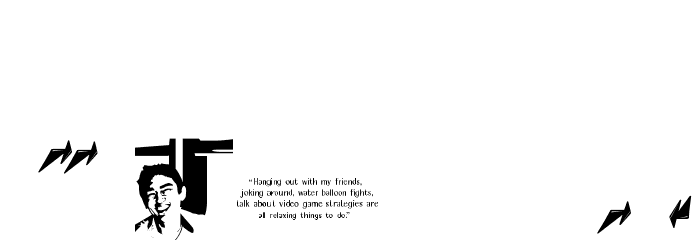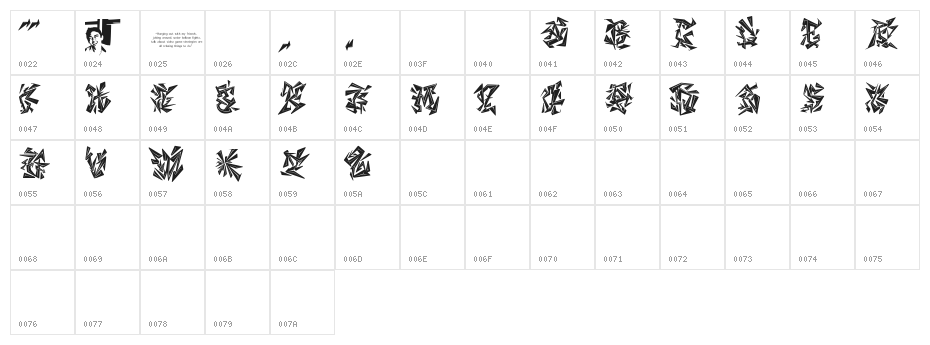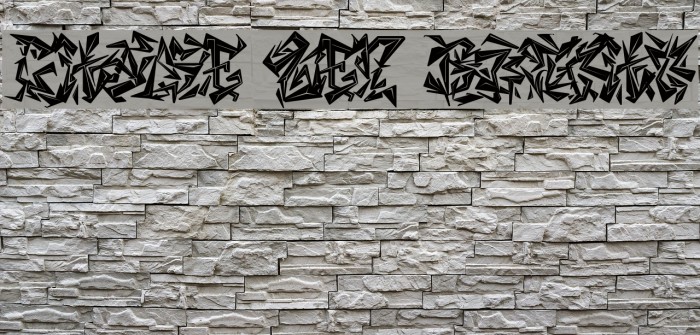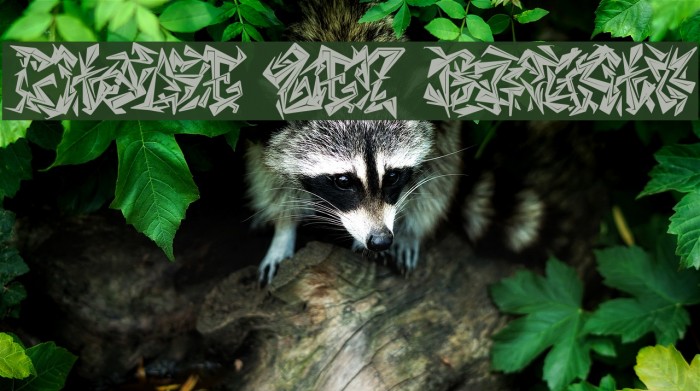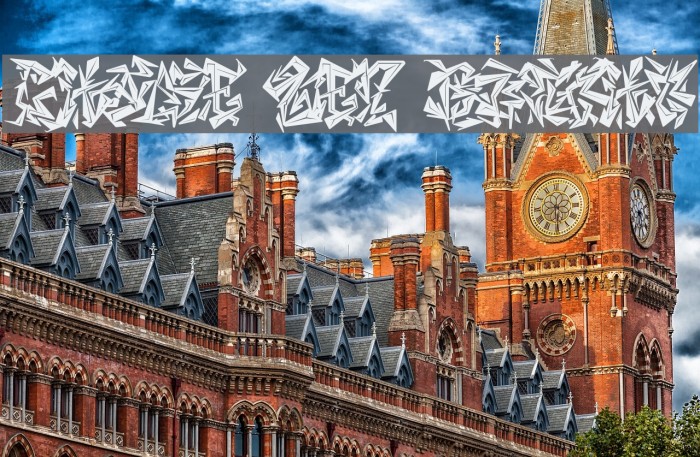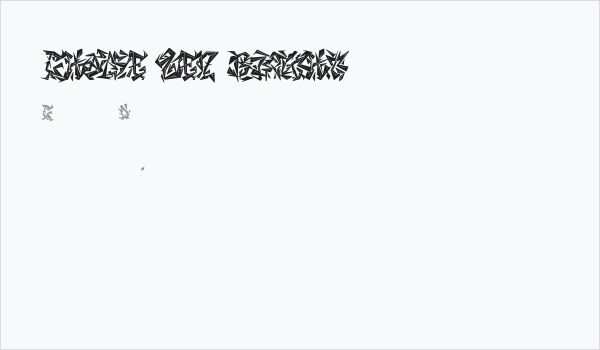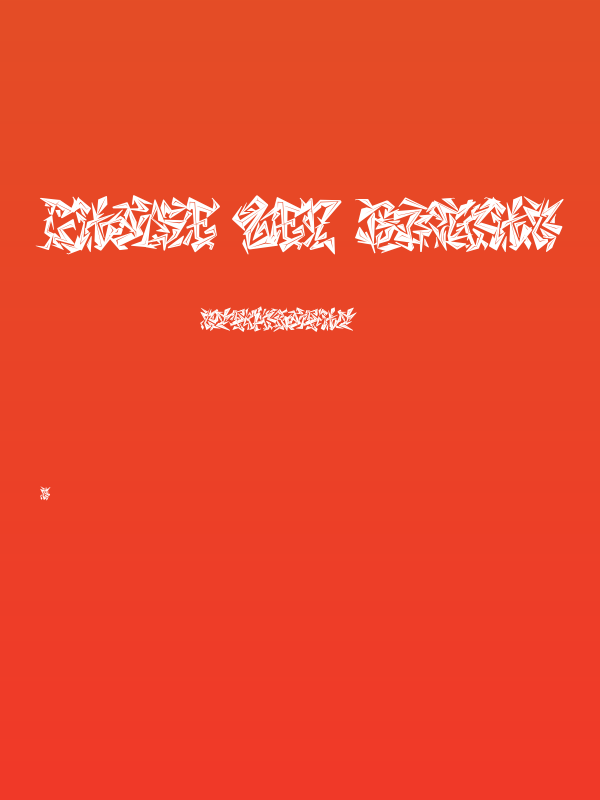
CHASE ZEN BLIGHT Font
CHASE ZEN BLIGHT Description
This font is a bold and edgy graffiti-style typeface that captures the essence of urban street art. The characters are highly stylized with sharp angles and dynamic lines, creating a sense of movement and energy. Each letter is unique, with intricate details that make the font stand out. The overall appearance is chaotic yet artistic, perfect for projects that require a rebellious or unconventional look. The font's design is reminiscent of spray-painted tags, making it ideal for creative and modern applications.
| Overall Style | Modern, Urban |
| Use Case | Logos, Posters, Street Art |
| Proposed Projects | Ideal for street art projects, urban-themed designs, album covers, and edgy branding. |